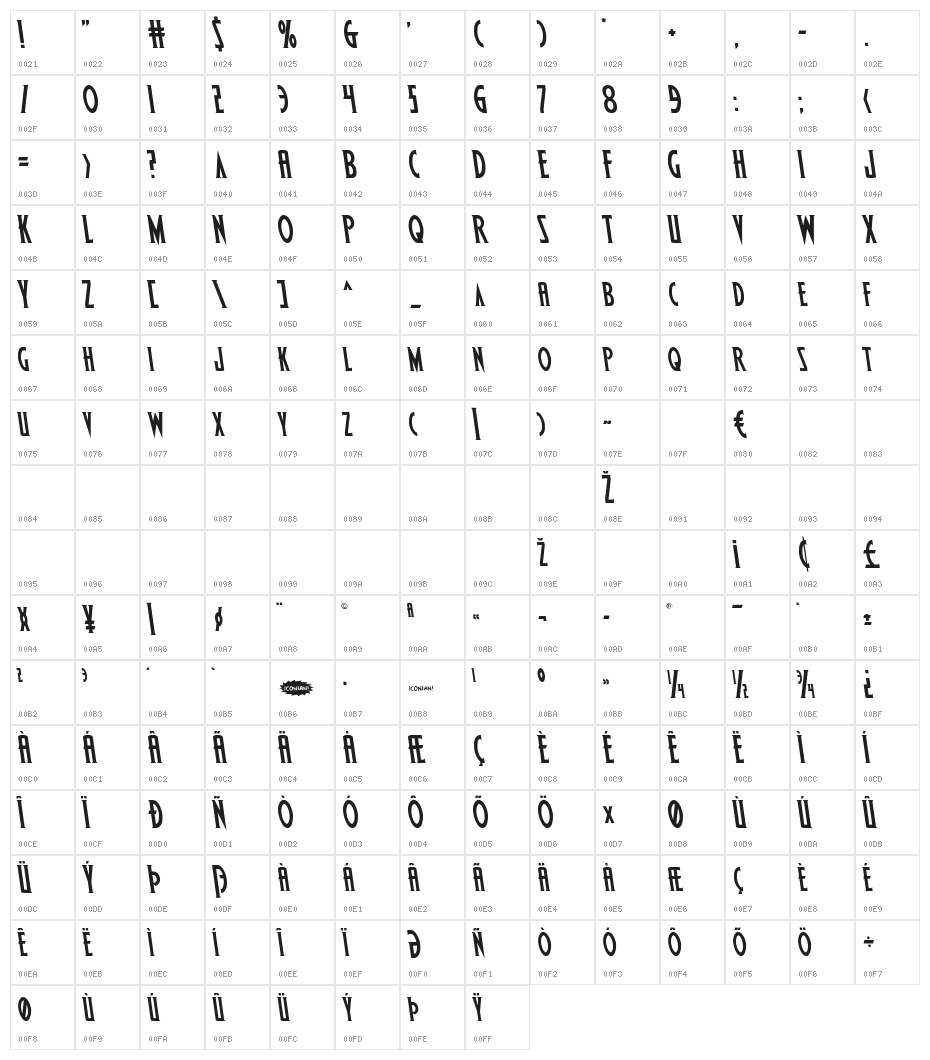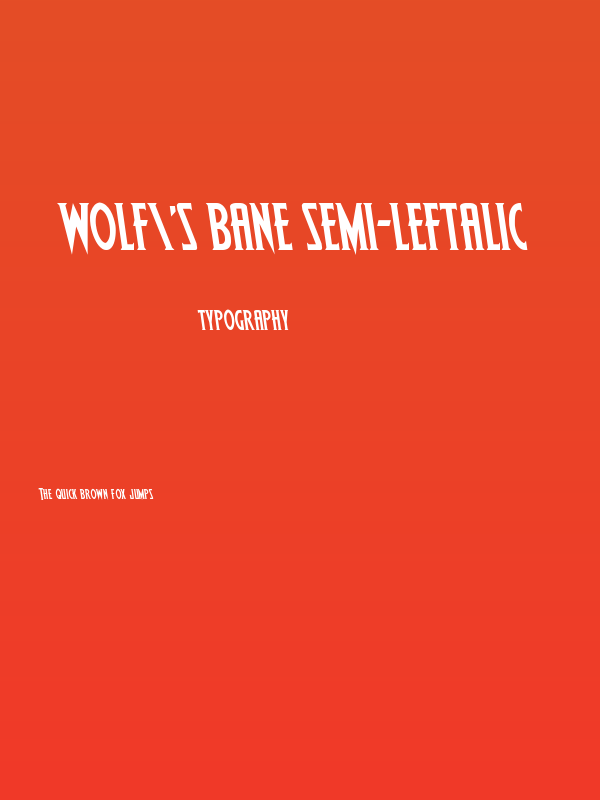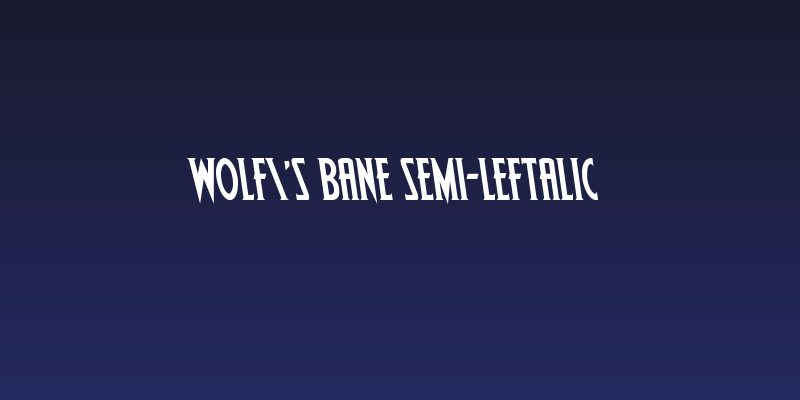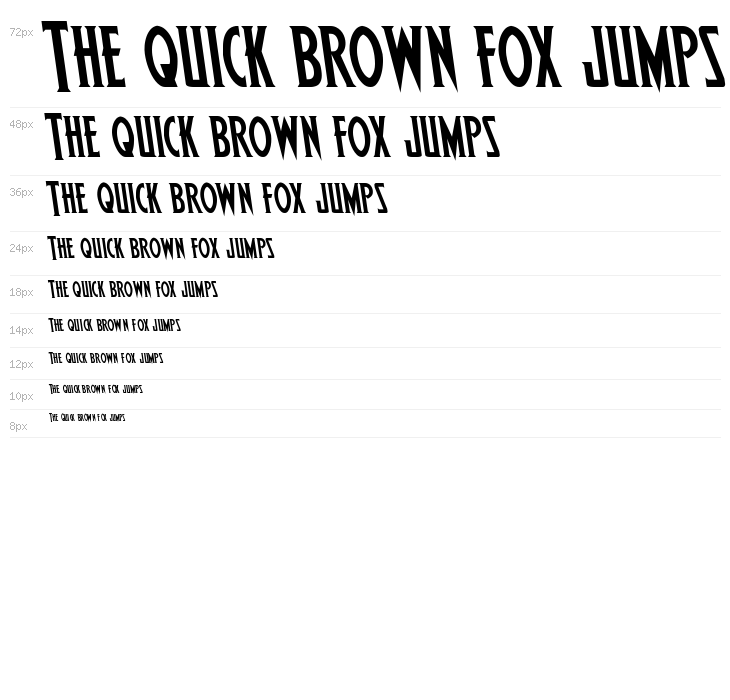
Wolf's Bane Semi-Leftalic Font
Wolf's Bane Semi-Leftalic Description
This font features a bold and dynamic design with sharp, angular edges and a distinct leftward slant, giving it a sense of motion and energy. The characters are tightly spaced, enhancing its compact appearance. The uppercase letters are particularly striking, with elongated vertical strokes and pointed serifs that add a dramatic flair. The numerals and special characters maintain the same bold style, ensuring consistency across all glyphs. This font's unique style makes it ideal for projects that require a strong visual impact.
| Proposed Projects | Ideal for posters, logos, and branding materials that require a bold and energetic look. |